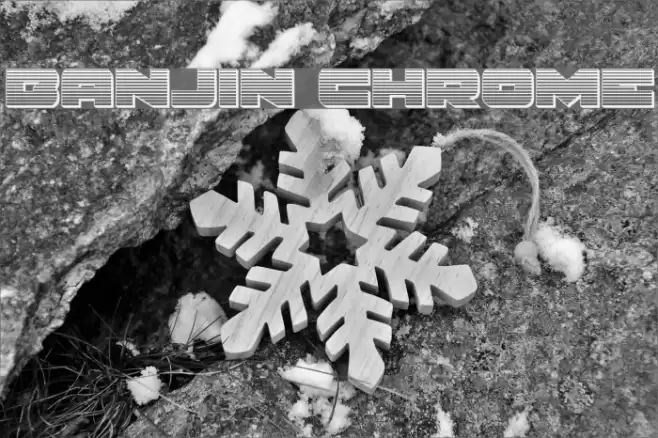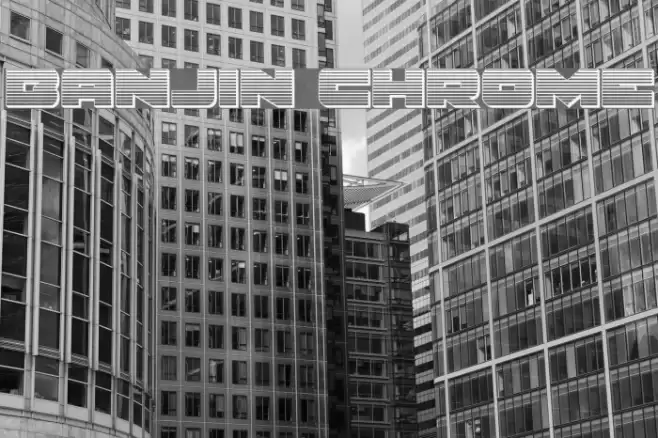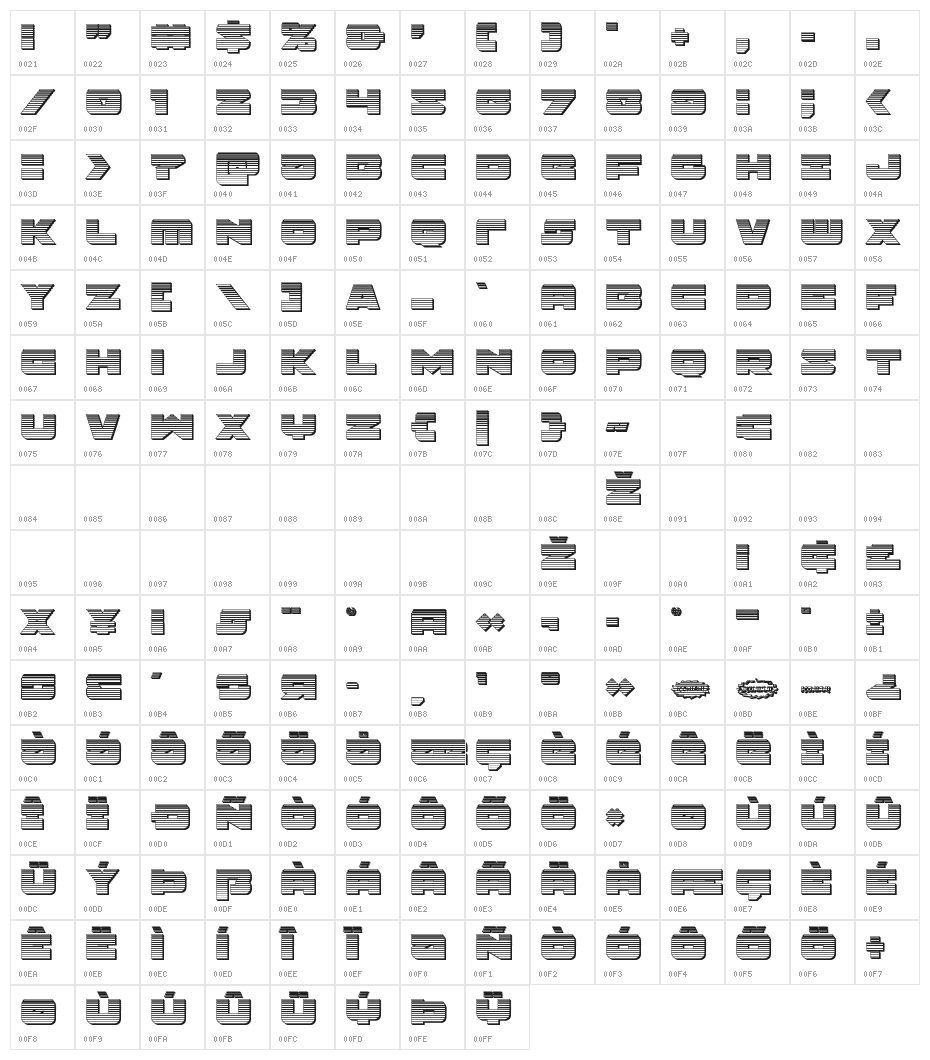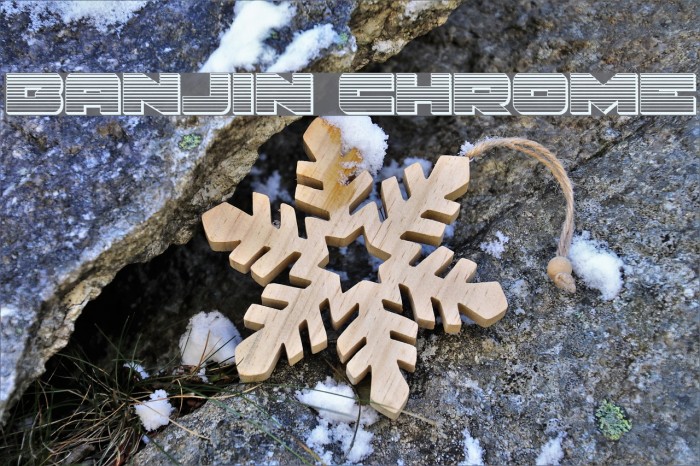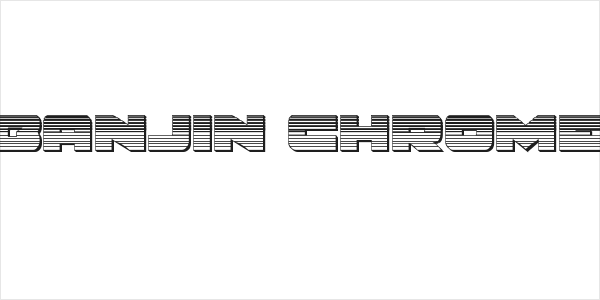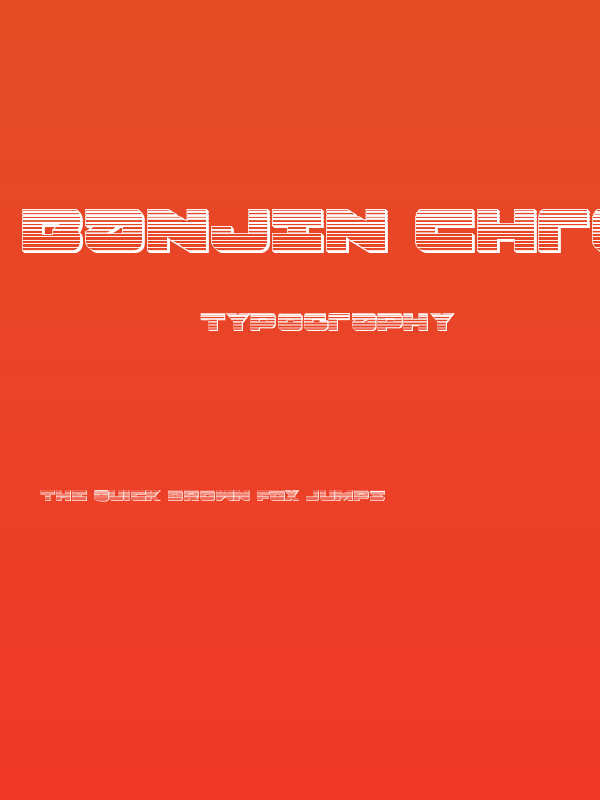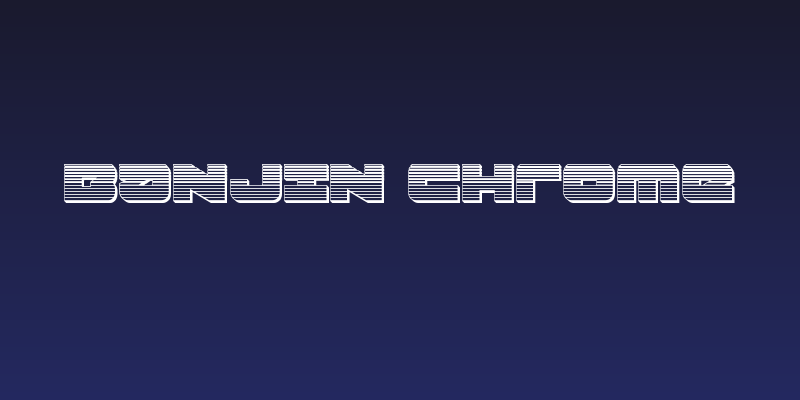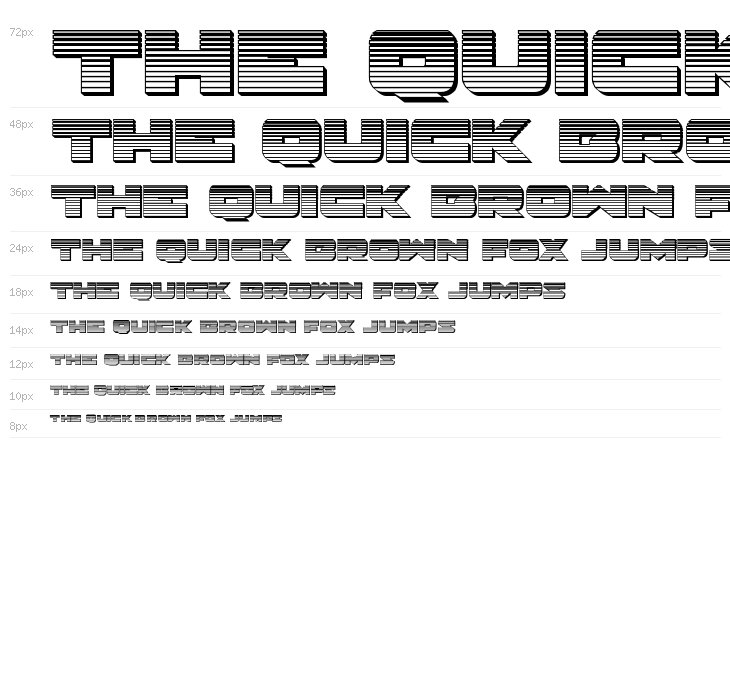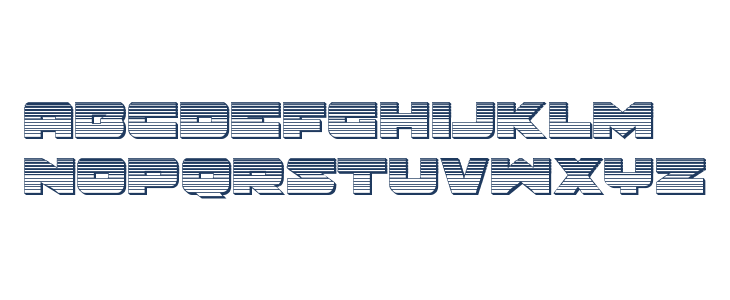
Banjin Chrome Font
Banjin Chrome Description
This font features a bold, futuristic design with a distinct chrome-like appearance. Each character is constructed with multiple horizontal lines, creating a layered effect that gives depth and a sense of motion. The geometric shapes are sharp and angular, emphasizing a modern and industrial aesthetic. The uppercase and lowercase letters maintain a consistent style, while the numerals and special characters integrate seamlessly into the overall design. The font's unique structure makes it stand out, ideal for projects that require a strong visual impact.
A bold, futuristic font with a chrome-like, layered design from Uncategorized fonts.
- Proposed Projects: Ideal for sci-fi themed projects, technology branding, video game titles, and futuristic posters.
- Overall Style: Futuristic